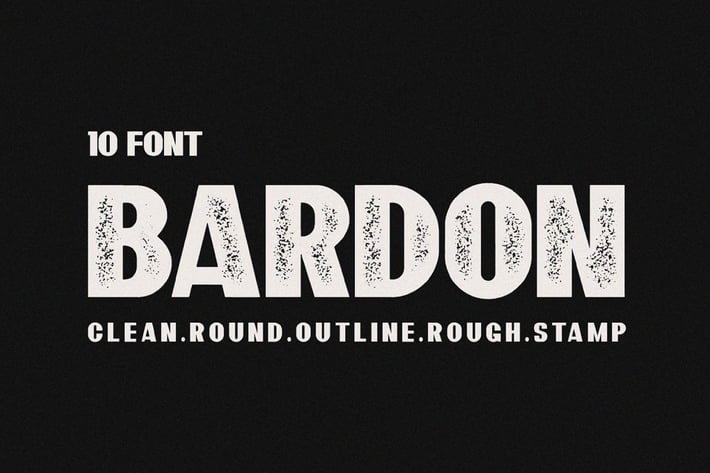
Bardon Font Family + 10 Style Fonts
Bardon is a bold condensed sans-serif font family built for vintage logos, retro branding, and high-impact display design. With 10 versatile styles Clean, Rounded, Outline, Rough, and Stamp, each available in Regular and Italic, Bardon gives designers everything needed to craft powerful wordmarks and vintage-inspired brand identities.
- 10 font styles: Clean, Rounded, Outline, Rough, Stamp each in Regular and Italic
- Bold condensed letterforms with strong vintage character
- All uppercase design with numerals and punctuation
- Multilingual support with extended Latin characters